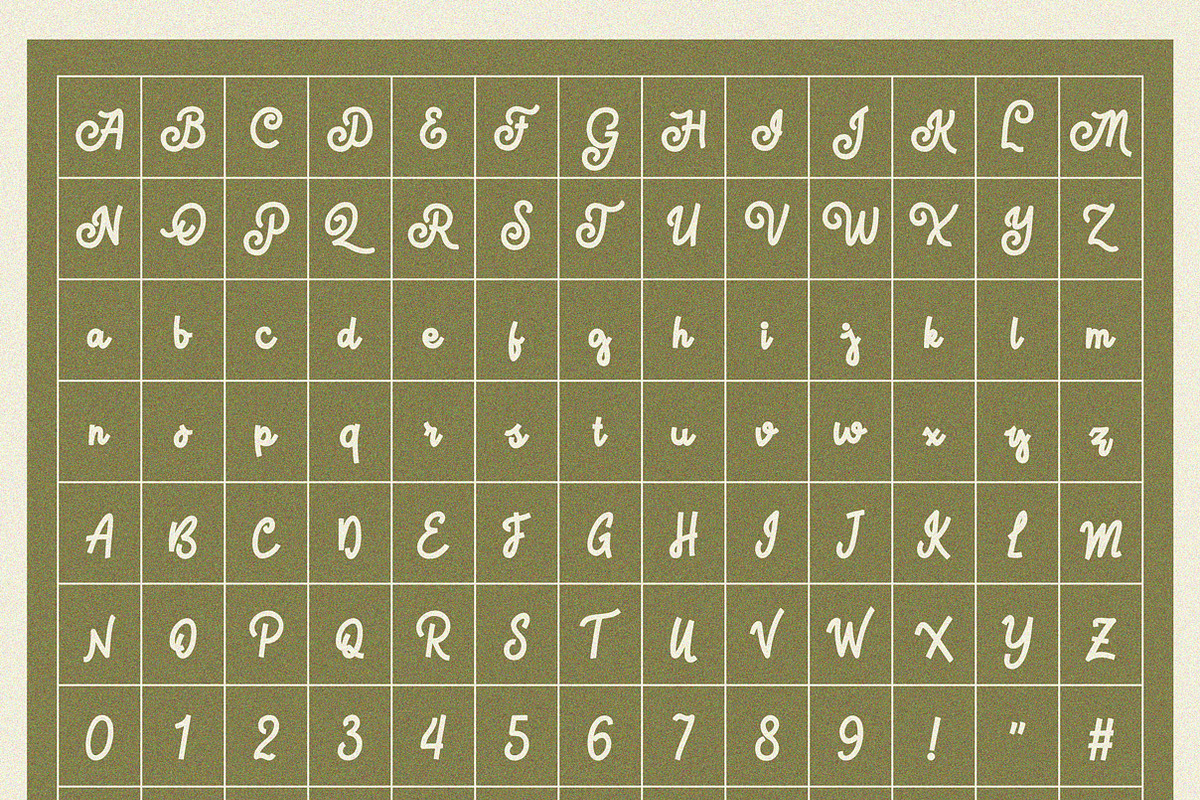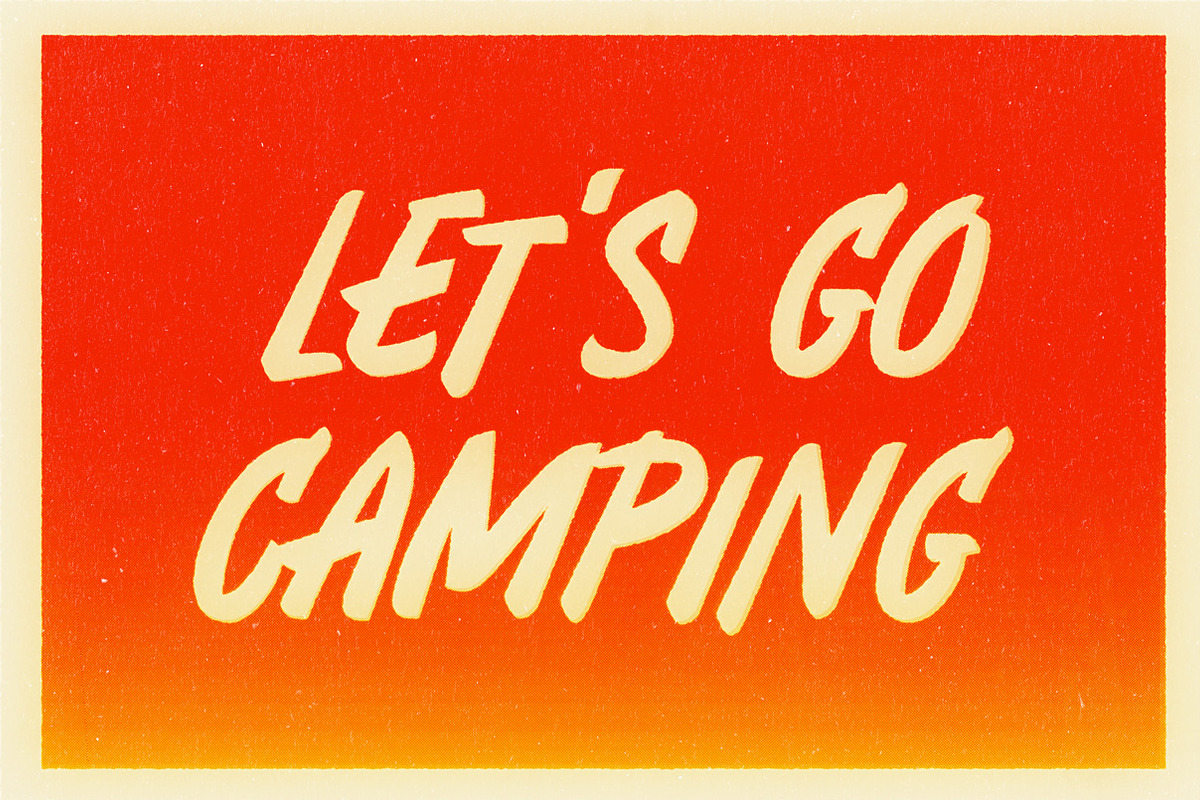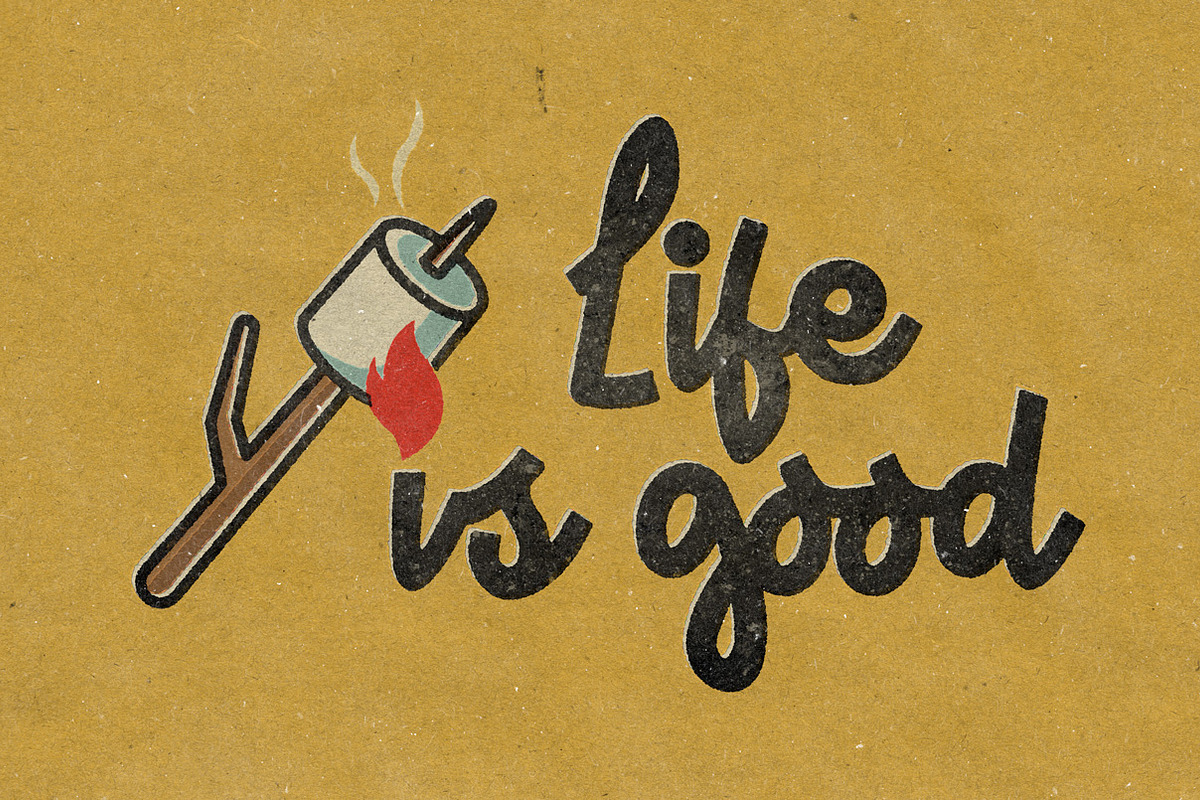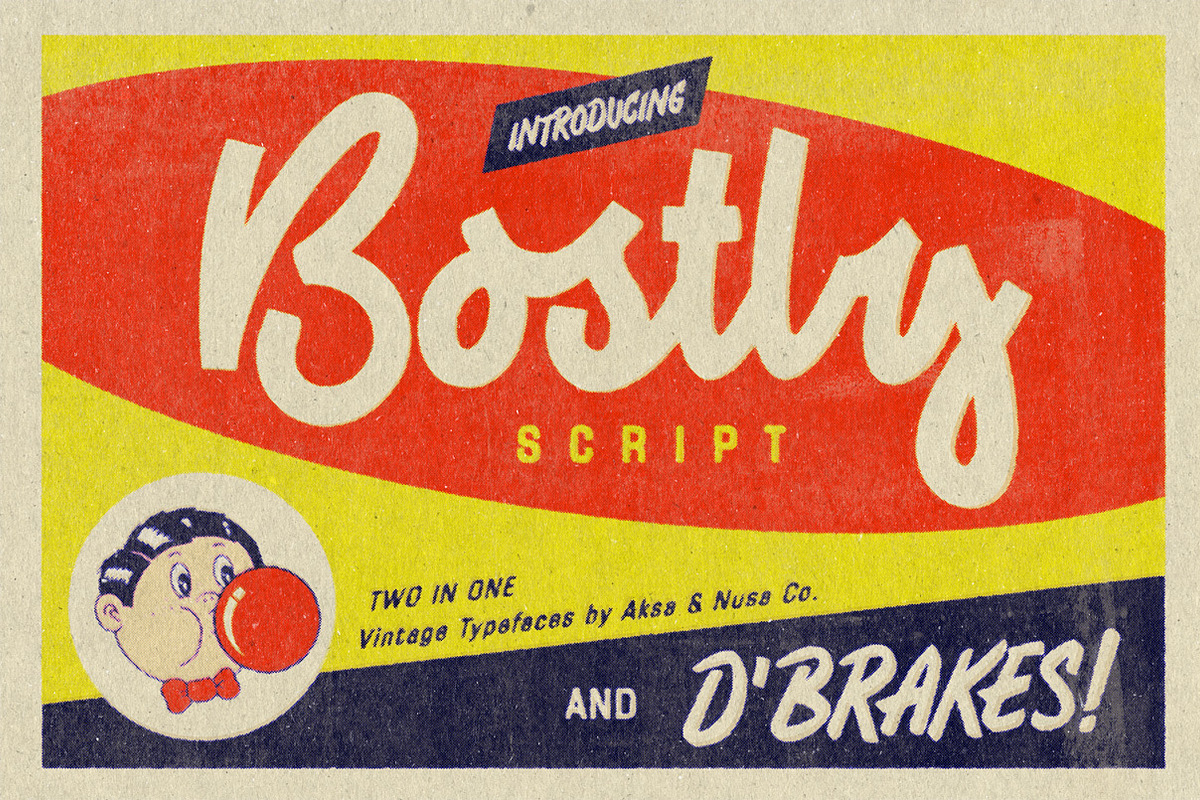
Vintage Fonts Bostly & D'brakes
Vintage Fonts Bostly & D'brakes by Aksa & Nusa Co. is a font selected for branding, posters, packaging, typography.
Why Vintage Fonts Bostly & D'brakes is worth a look
Vintage Fonts Bostly & D'brakes by Aksa & Nusa Co. fits naturally into Branding, posters, packaging, typography.